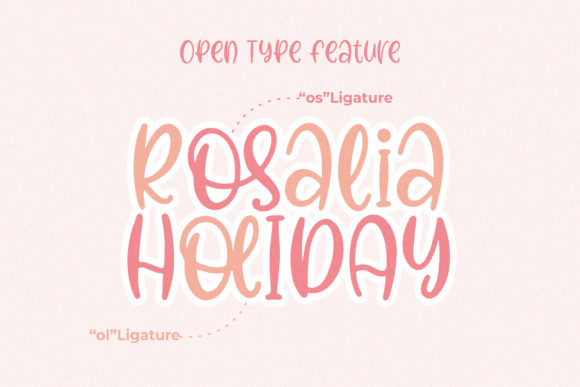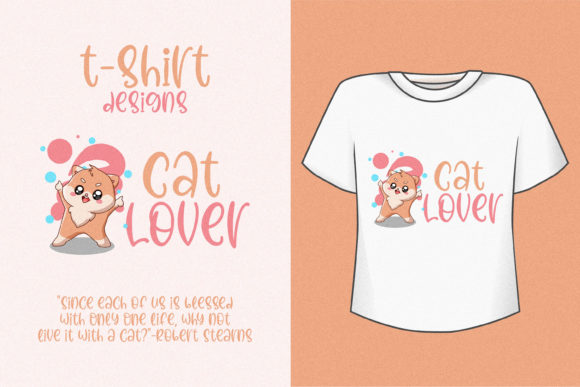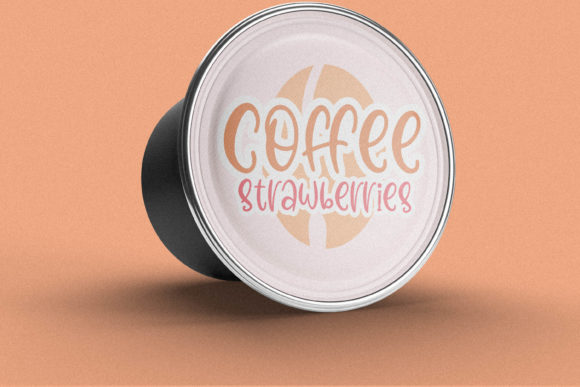
Introduction to Rosalia Holiday Font
Rosalia Holiday is a quirky premium font suitable for any projects like logos, branding projects, homeware designs, product packaging, mugs, quotes, posters, shopping bags, t-shirts, book covers, name cards, invitation cards, or greeting cards.
It’s also a good fit for labels, photography, watermark, special events, and all your other luxury projects that need a premium signature taste .
Rosalia Holiday Font offers exceptional quality and versatility, making it a valuable addition to your design toolkit. Whether you’re creating for personal projects or commercial use, Rosalia Holiday Font delivers professional results.